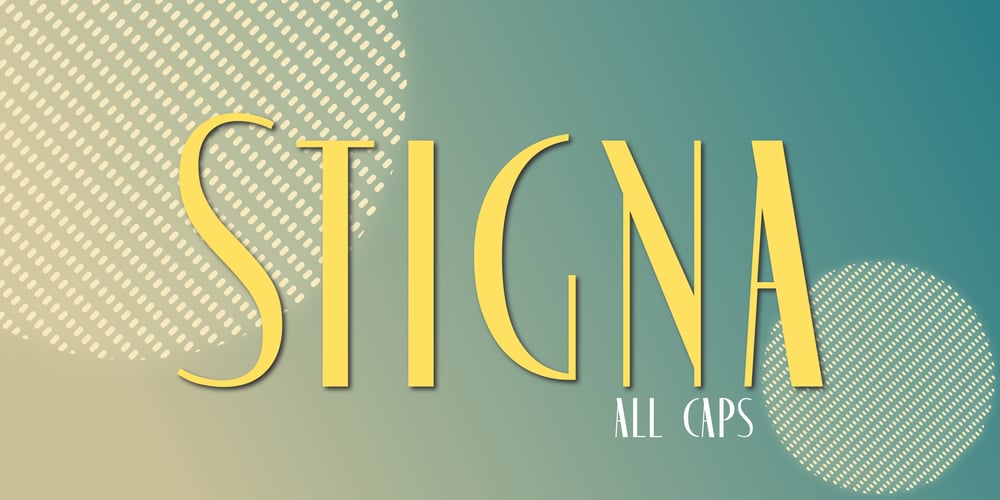
Stigna Font Family was designed by Ahsan Ahmedzai and published by Kufic Studio. Stigna contains 8 styles and family package options. Stigna (All Caps) is a branding font to enhance and beautify your designs.A modern factor has been applied to bring a classy and elegant look. All characters have been manually designed to bring more into your graphics. The font has been created keeping in mind the modern and trending factors for web or printing.The font can be best used with Websites, magazines, and Social Media Posts.Stigna Font Family Includes:Stinga Regular, Stigna Italic, Stigna Bold, Stigna Expanded Regular, Stigna Expanded Italic, Stigna Expanded Bold, and Stigna Expanded Bold.Kufic Studio is a platform that provides professional and high-quality designs & fonts to fill the gap that has been missing in the market.